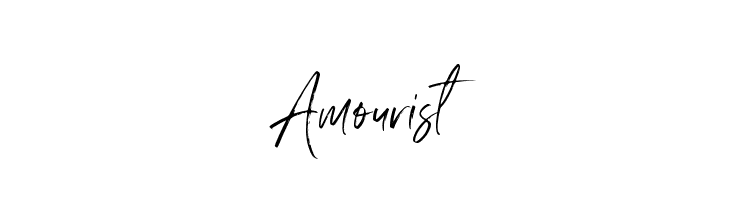
A playful, bubble-like font with bold, rounded characters.
A bold, playful script font with a handwritten style.
A sleek, modern font with thin lines and geometric shapes.
A playful, bold font with heart accents and rounded characters.
A bold, decorative font with angular serifs and unique cut-out shapes.
An ornate, curly decorative font with swirling embellishments.
A sophisticated script font with elegant, flowing cursive letterforms.
A dynamic, brush-style font with expressive, cursive forms and high contrast.